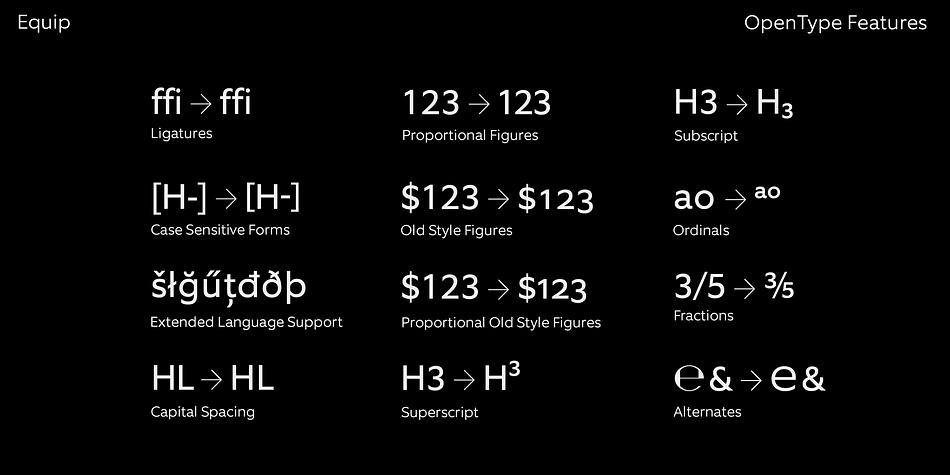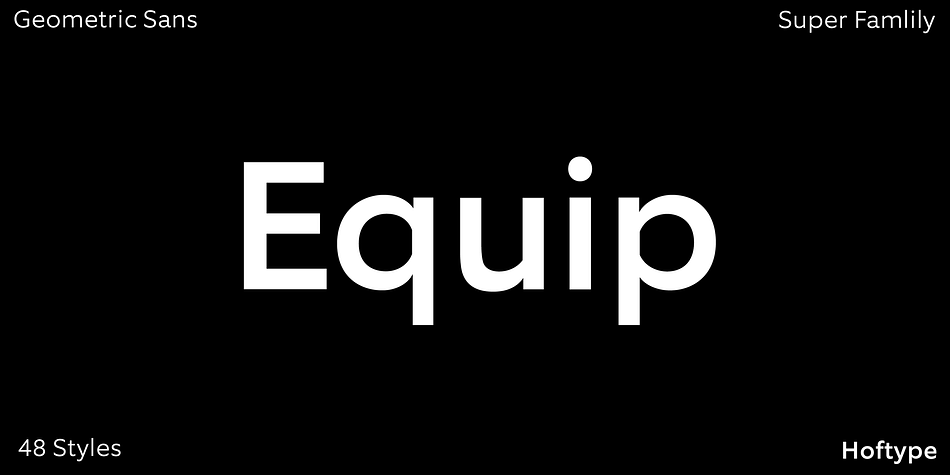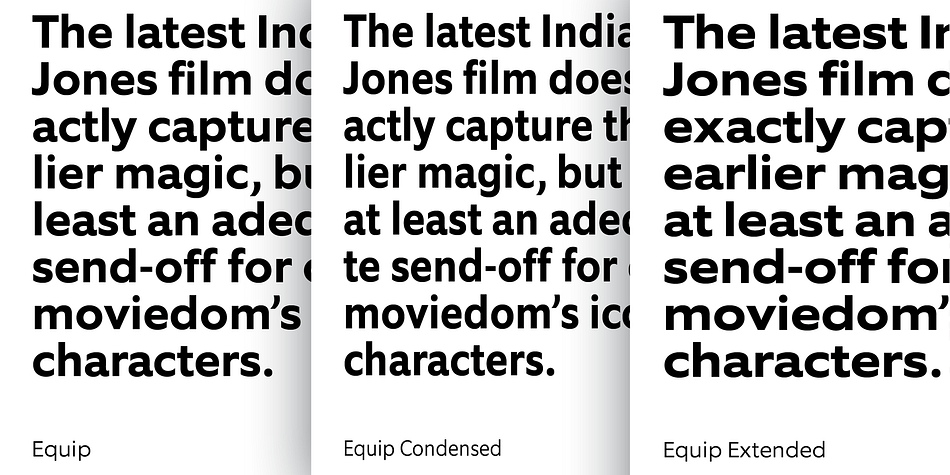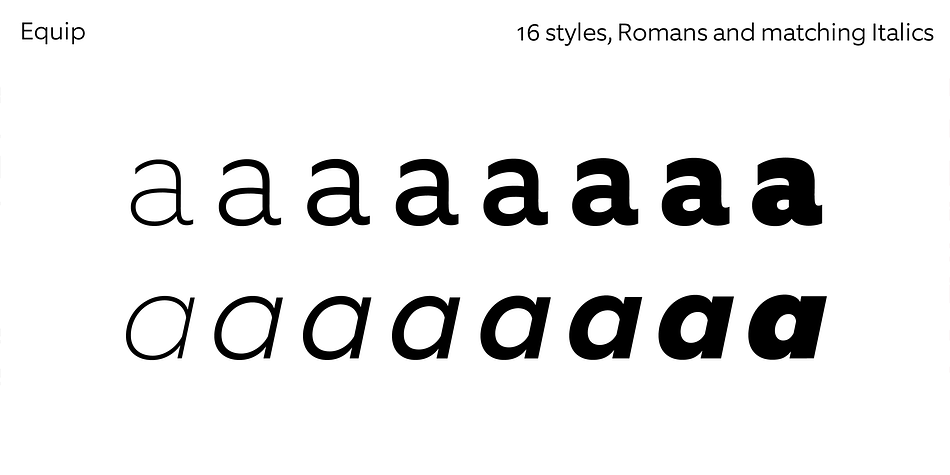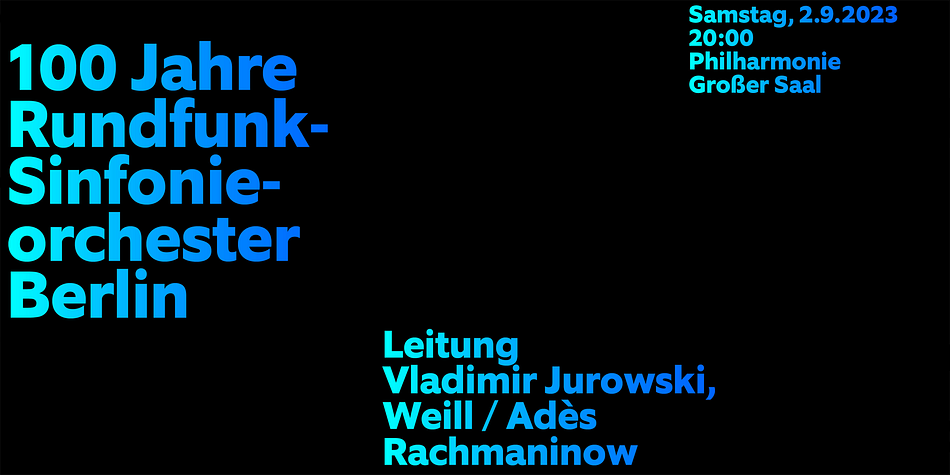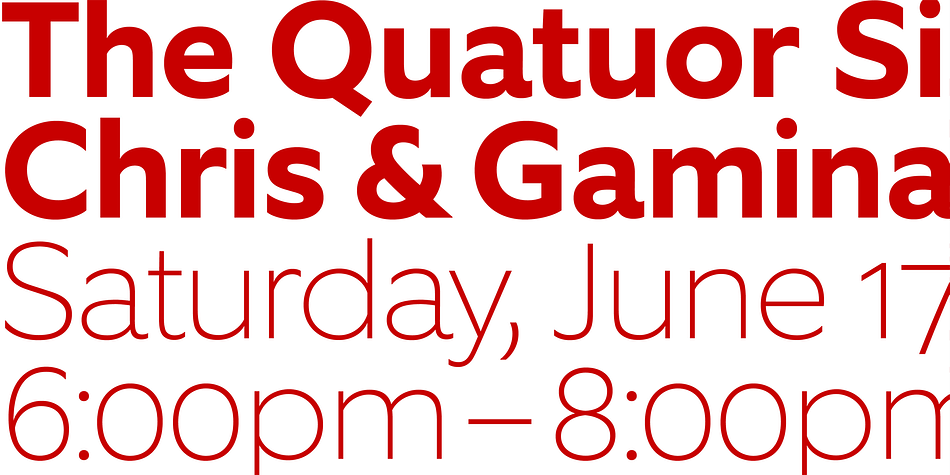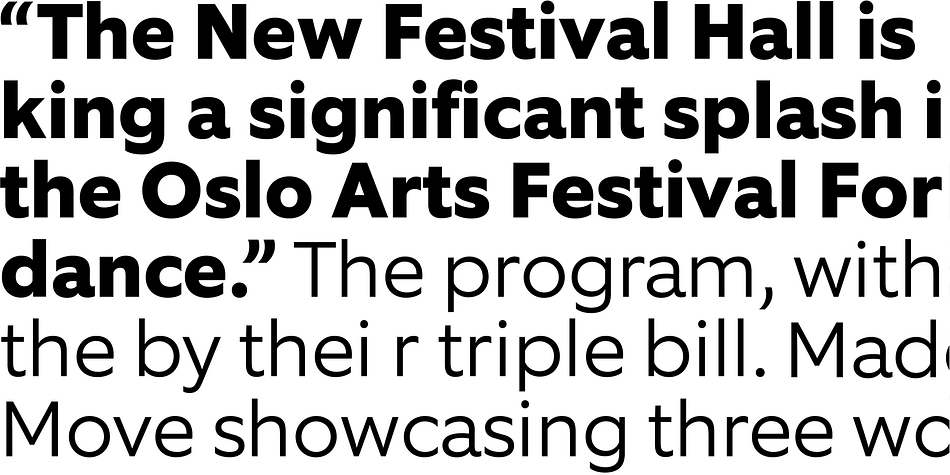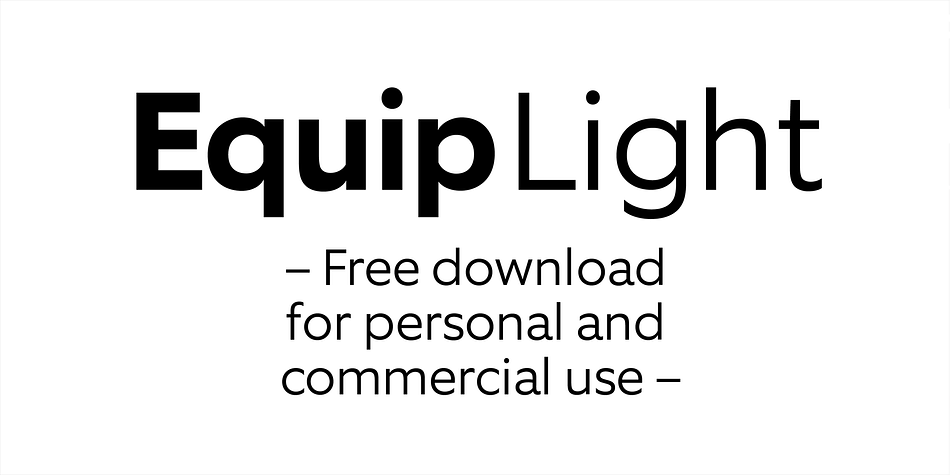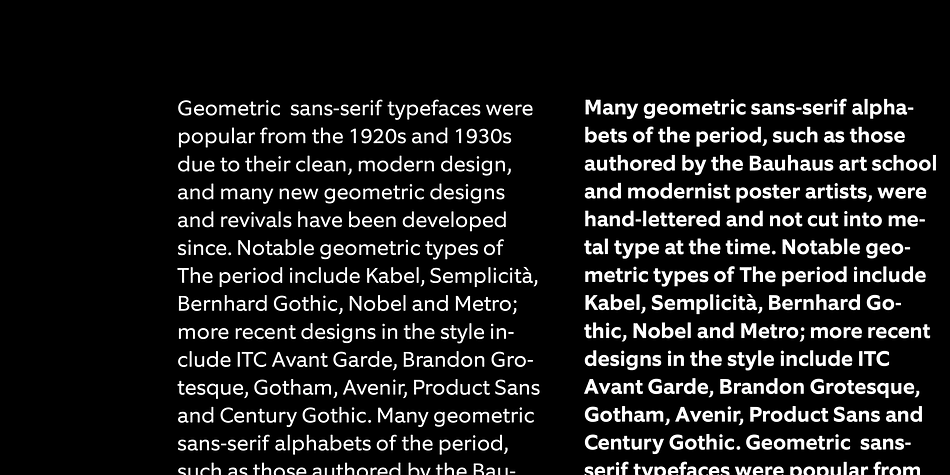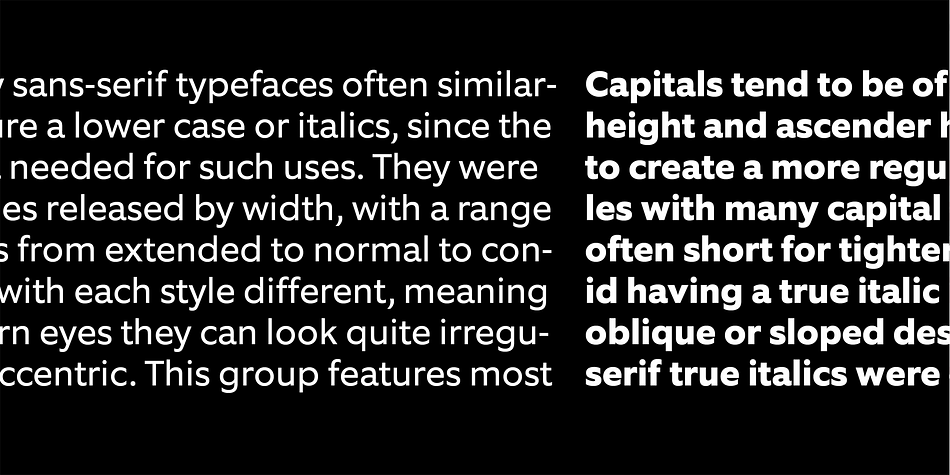
Equip is a sans serif font family. This typeface has sixteen styles and was published by Hoftype.
Equip, a new versatile geometric sans face in 16 styles, designed on a geometric base. Low contrasted lines and a sturdy ductus give it a strong appearance. It looks open, generous and unsentimental. A large selection of weights and many useful OpenType features allow an easy adjustment for a wide range of applications, in print and on the web.
Equip is very well suited for ambitious typography. The Equip family comes in OpenType format with extended language support. All weights contain semi-ligatures (design optimized single characters), proportional lining figures, tabular lining figures, proportional old style figures, lining old style figures, matching currency symbols, fraction- and scientific numerals and arrows.